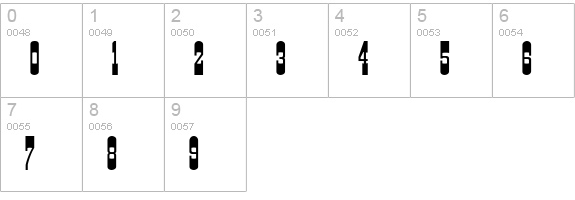
Cartwright Font Details
Cartwright font is a modern and stylish typeface that exudes sophistication and elegance. With its clean lines and sleek design, Cartwright is perfect for a wide range of design projects, from branding to editorial layouts. Its versatility makes it a favorite choice among designers looking to add a touch of class to their work. One of the best things about Cartwright font is that it is completely free to download. You can easily access this beautiful typeface at FontsMarket.com, where you can explore its full potential and use it in your projects without any cost. Whether you are working on a professional design project or simply want to add a touch of flair to your personal creations, Cartwright font is the perfect choice. Download it today and elevate your designs with this stunning and elegant typeface.